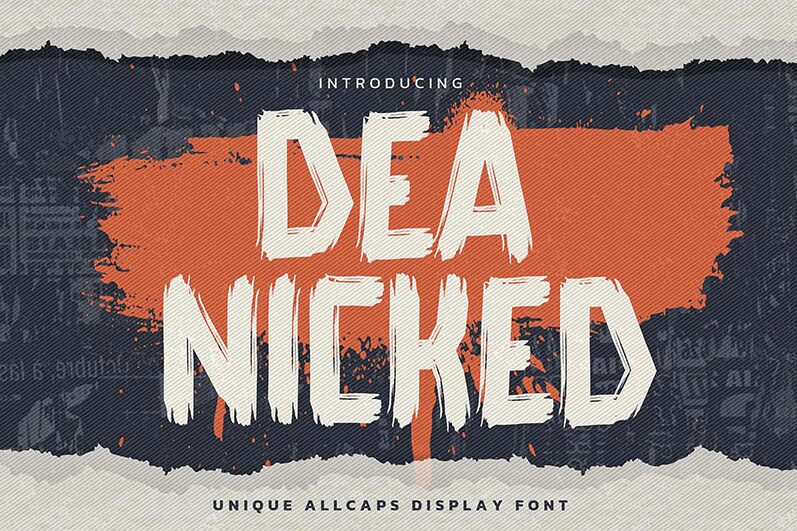
Deanicked
Deanicked, designed by Gassstype, fuses boldness with a dynamic brush style, exuding an energetic and artistic flair. Its light strokes create distinctive movement, while the condensed form adds a modern edge, making it exceptionally striking. The letters appear to dance across the page, inviting intrigue and engagement.
Ideal for projects where personality matters-like branding for creative agencies, event posters, or expressive merchandise-Deanicked captures attention effortlessly. Its unique aesthetic breathes life into designs, transforming simple messages into compelling visual statements. Embrace Deanicked to make your work stand out with character and vivid expression.